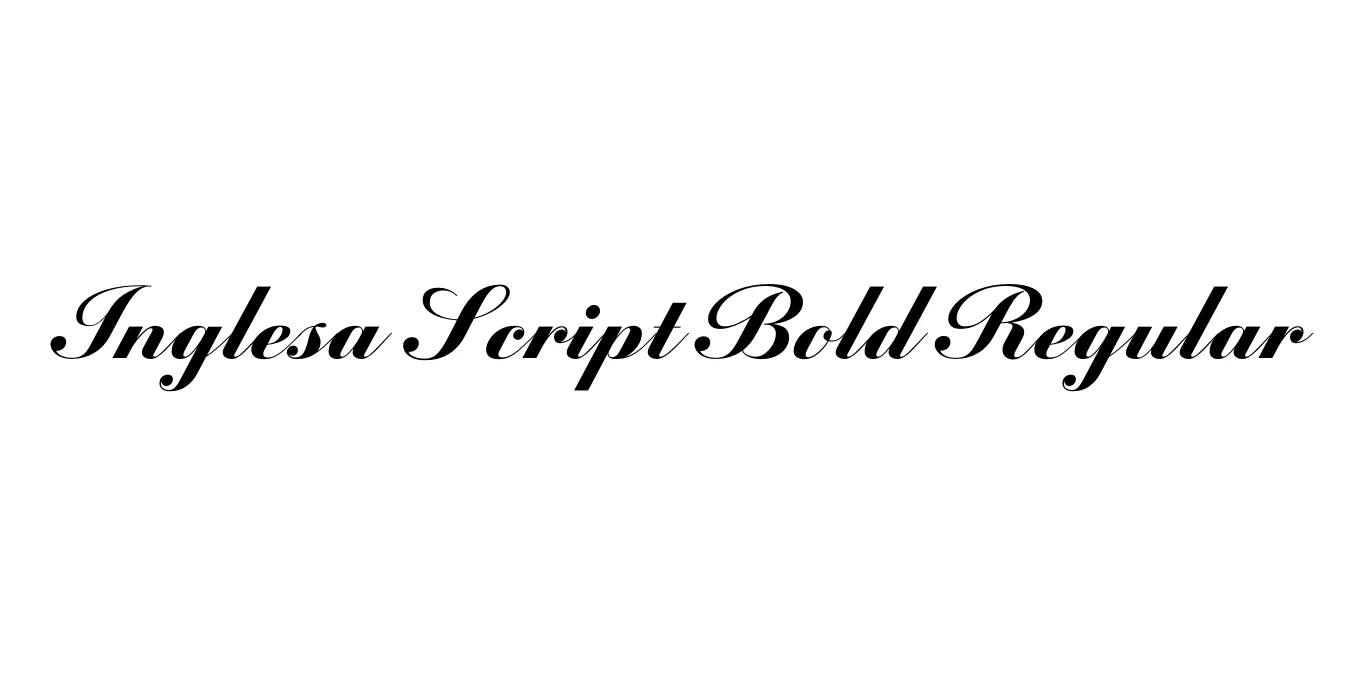
Inglesa Script Bold Regular
Designed by Ronaldo Tenorio
Inglesa Script Bold Regular is a sophisticated calligraphic typeface that draws inspiration from the timeless tradition of English Copperplate script. Characterized by its fluid, rhythmic strokes and elegant flourishes, this bold variant offers a more pronounced visual weight than standard scripts. It captures the essence of 18th-century penmanship, blending historical elegance with digital precision to create a font that exudes class and authority.
The typeface is highly regarded for its high-contrast strokes and intricate letterforms, which make it a favorite among graphic designers for high-end projects. Whether used for digital media or print, Inglesa Script Bold maintains its legibility while providing a luxurious aesthetic. Its formal structure is balanced by the natural flow of handwritten curves, making it an essential tool for creating a sense of prestige and tradition.
Inglesa Script Bold Regular Best Uses
Ideal for formal invitations, save-the-date cards, and seating charts.
Perfect for logos, high-end packaging, and premium fashion labels.
Great for diplomas, awards, and official documents requiring a traditional feel.
Used for sophisticated quote graphics and elegant promotional materials.